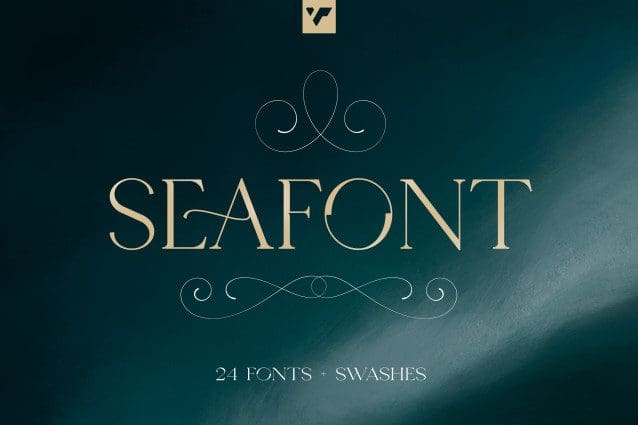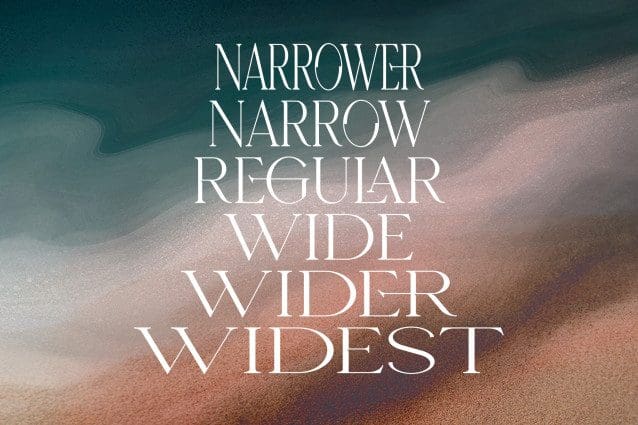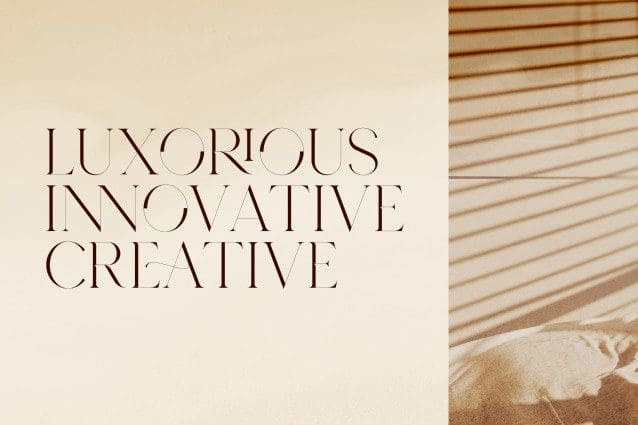
Seafont Font
Seafont Font, a refined serif typeface that is both timeless and versatile. Whether you narrow your choices down to 24 font styles or go wild with 26 swashes and support for multiple languages ​​and ligatures – the results will be unique!